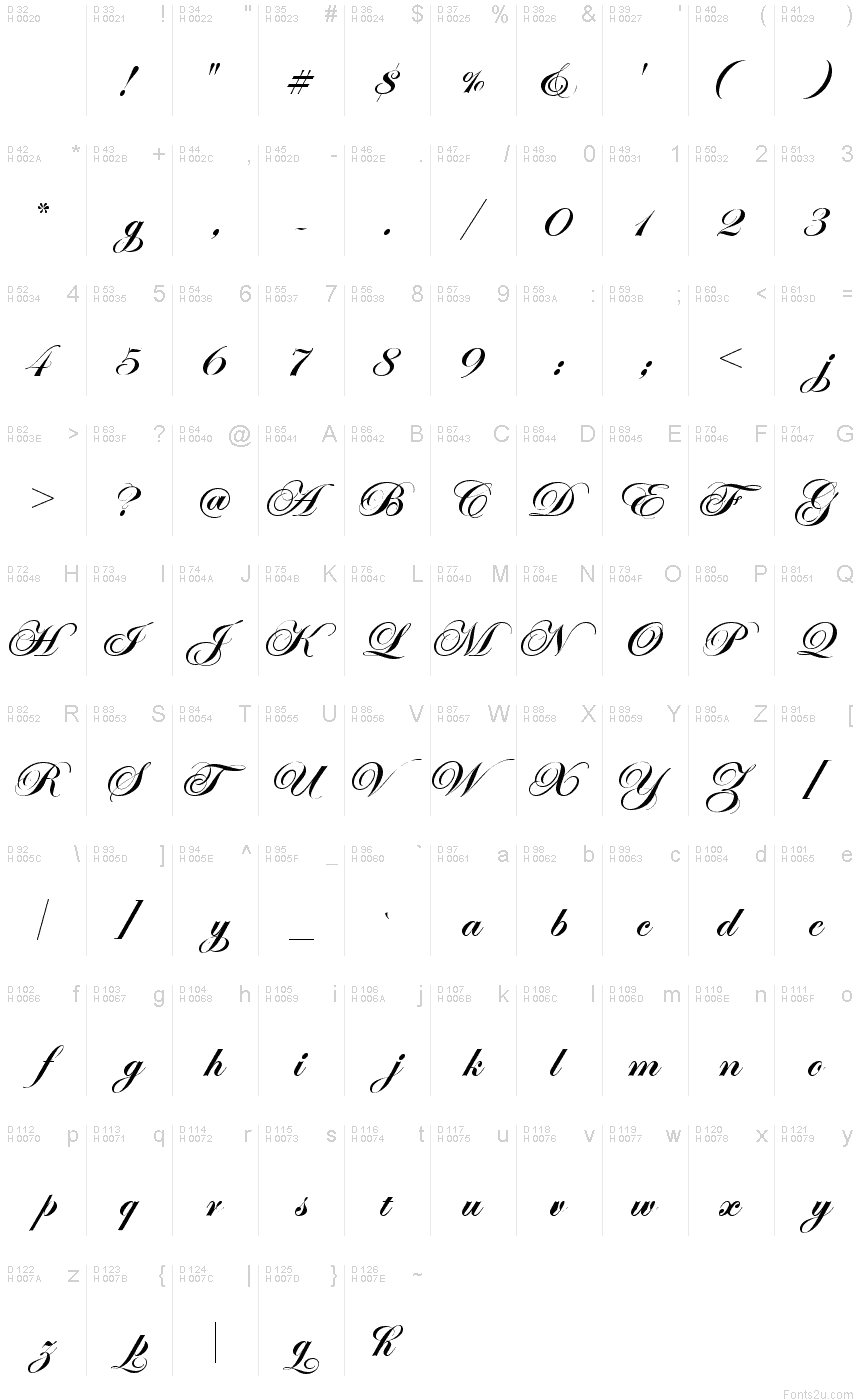
Easy Street EPS Bold
Easy Street EPS Bold font by EPS Fonts is a free calligraphy typeface in the Easy Street EPS family, with lush, sweeping strokes that feel like fresh ink pulled across satin. Letters lean into a graceful rhythm, with long, looping entries and bold, velvety curves that add a touch of drama without turning messy. The result is a script that feels both extravagant and controlled, made to command attention in a single elegant line.
Using Easy Street EPS Bold, you can give wedding invitations, save‑the‑date cards, upscale menus, boutique logos, packaging, and greeting cards an instant sense of romance and polish. This free font shines when set large, letting the flourishes breathe and the rhythm of the script unfold. For body copy or fine print, pair it with a simple geometric sans serif to keep your layouts clear while Easy Street EPS Bold carries the emotional headline.